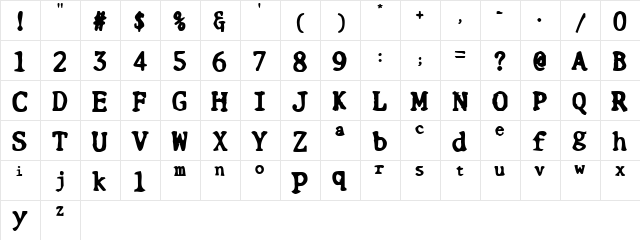
Botched Vasectomy Regular
Design Context for Botched Vasectomy Typeface
Botched Vasectomy is a composed and adaptable typeface that performs quietly and consistently across a wide range of design contexts.